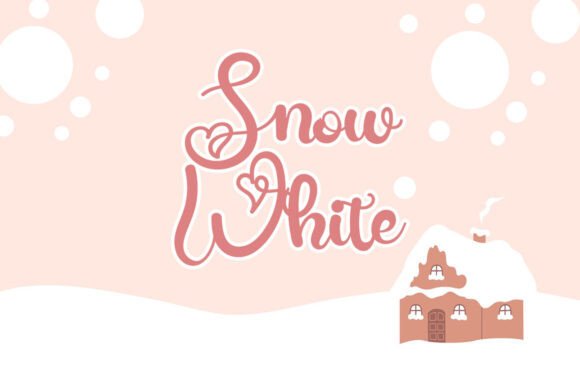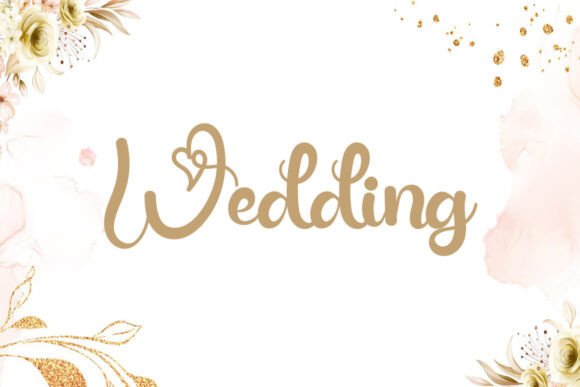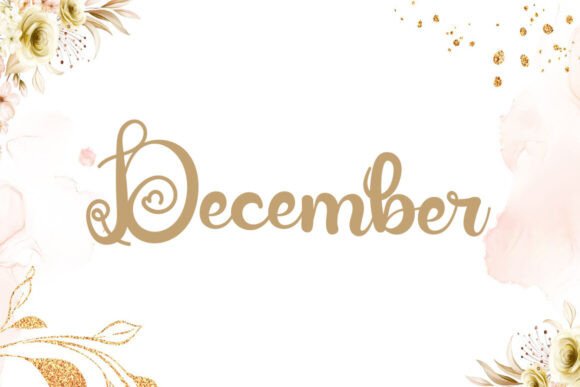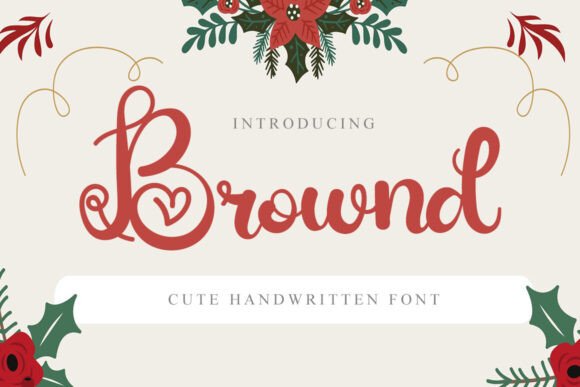
Introducing Brownd Font: Elevate Your Designs with Elegance and Whimsy
I’ll never forget the design project that led me to discover the Brownd Font. I was working on a branding campaign for a trendy new cafe, and I was struggling to find the perfect font that captured their playful yet sophisticated vibe. That’s when I stumbled upon Brownd Font, and it instantly became my go-to. Its unique blend of freshness, elegance, and sweetness was exactly what I needed to bring the cafe’s brand to life.
What Makes Brownd Font Special?
Brownd Font is more than just a typeface – it’s an artistic companion that can elevate any design project, whether formal or informal. Its versatility and charm can add a vibrant edge to your work, making it perfect for designers, crafters, and creative hobbyists.
- ✨ Exquisite craftsmanship: Brownd Font boasts a level of sophistication and attention to detail that’s hard to find in other typefaces.
- ✅ Seamless versatility: It effortlessly blends with various design projects, from formal business cards to whimsical party invitations.
- 💫 Joyful vibe: This font injects a sense of playfulness and energy into your designs, making them more engaging and memorable.
While Brownd Font is an exceptional typeface, there are a few minor limitations to consider:
- ⚠️ Limited availability of certain OpenType features: Some advanced typographic features might not be supported in older software or platforms.
- 🤔 Occasional kerning issues: As with any font, you might need to adjust kerning settings for optimal results.
The story behind Brownd Font begins with a young designer named Emma, who was tasked with creating a custom typeface for her friend’s bakery. Emma wanted to craft a font that captured the warmth and playfulness of her friend’s brand. After months of experimentation, Brownd Font was born – a unique blend of elegance, freshness, and sweetness.
| Font Name | Brownd Font |
| Author | Eddygoodboy |
Q: What makes Brownd Font suitable for both formal and informal designs?
A: Brownd Font’s versatility stems from its balanced design, which combines elegance with a playful touch. This allows it to adapt seamlessly to various design contexts.
Q: Does Brownd Font support OpenType features?
A: Yes, Brownd Font features advanced OpenType capabilities, including stylistic alternates, glyphs, and more.